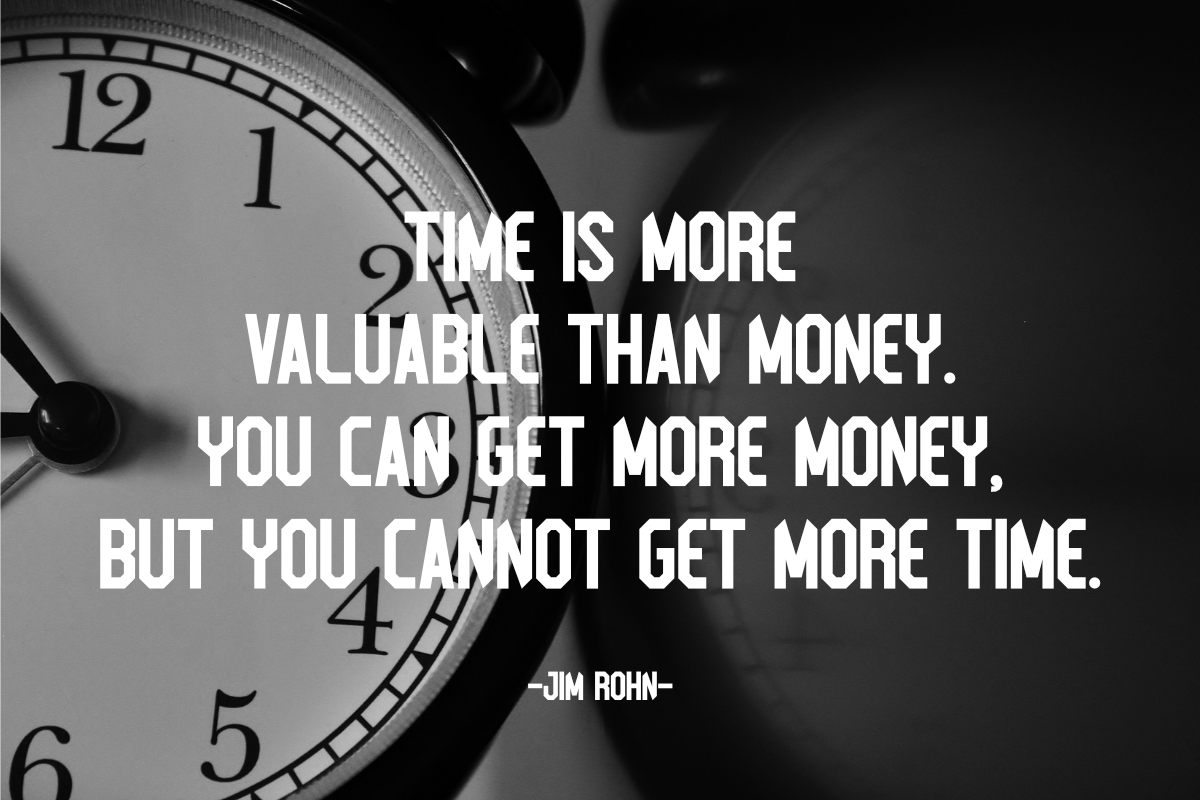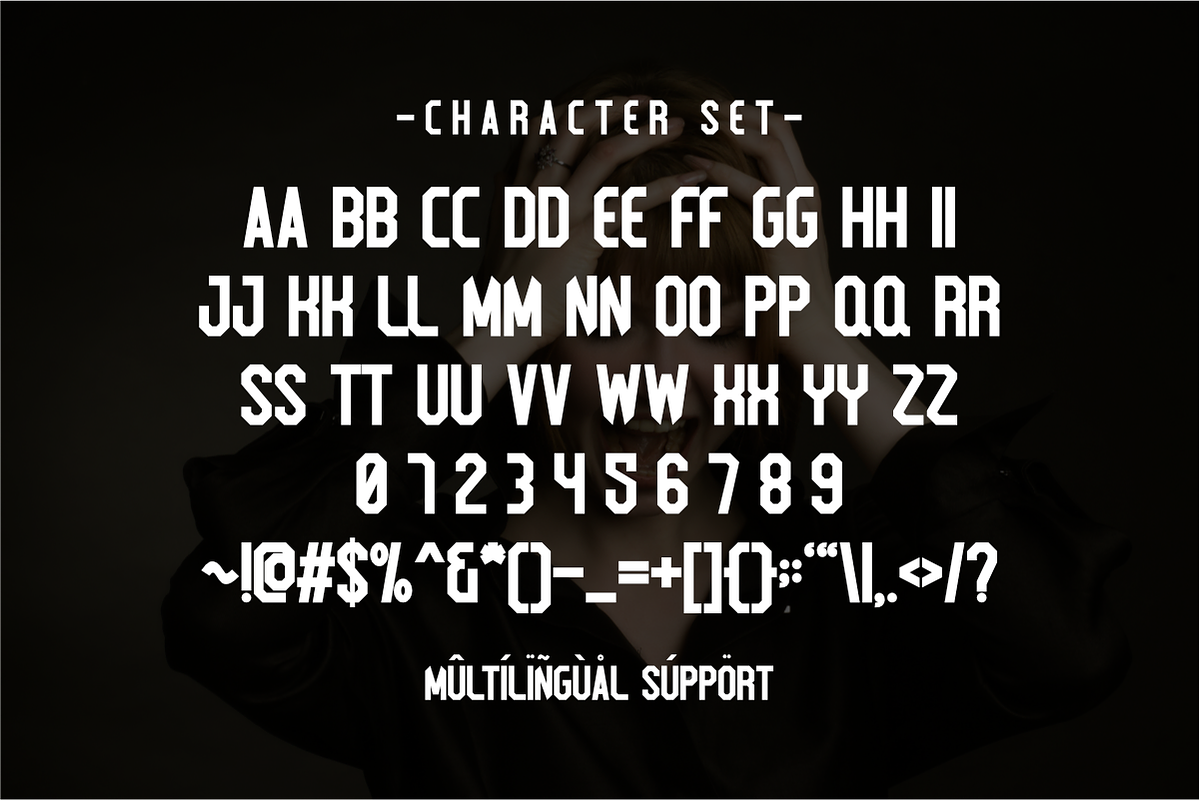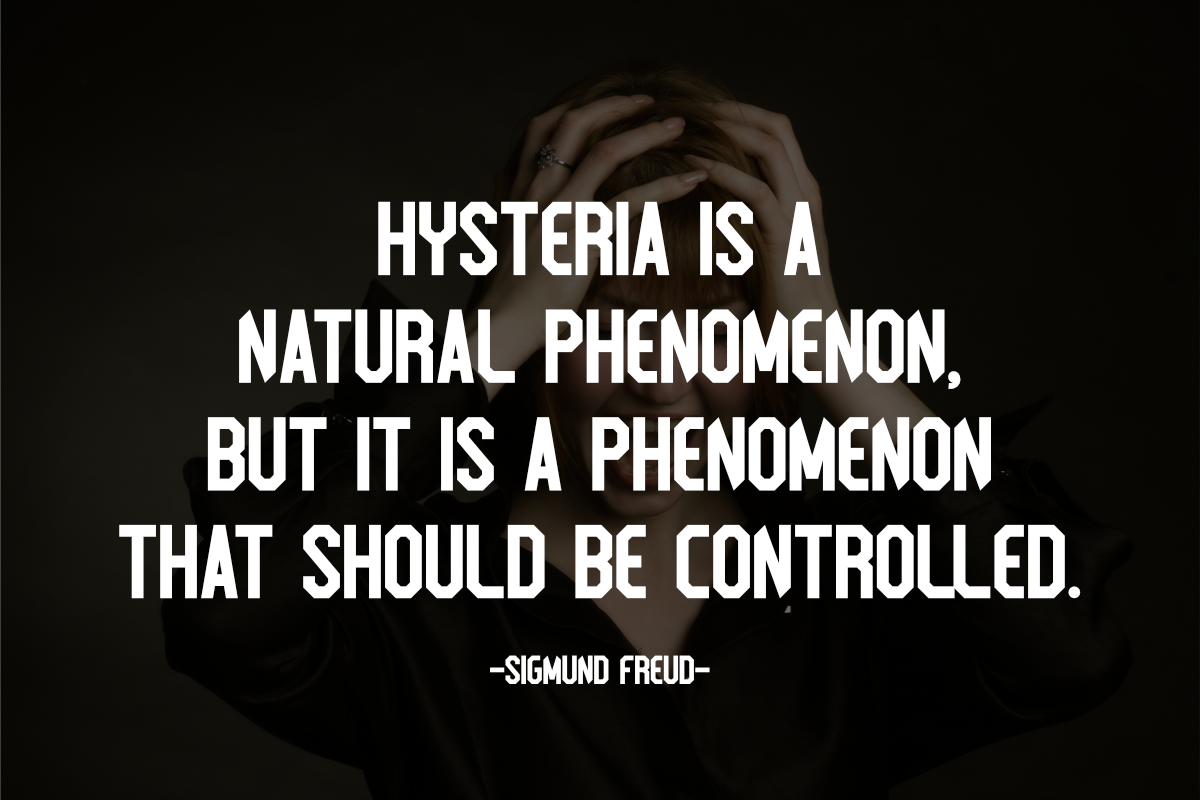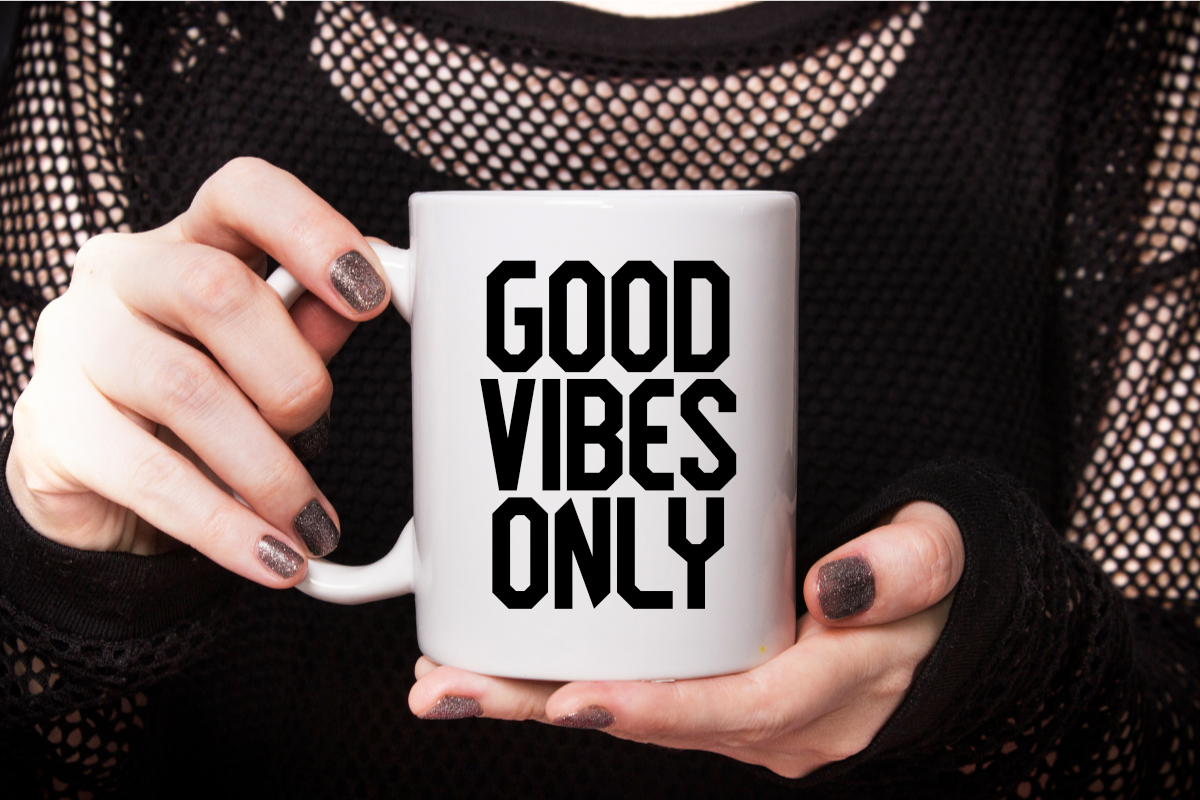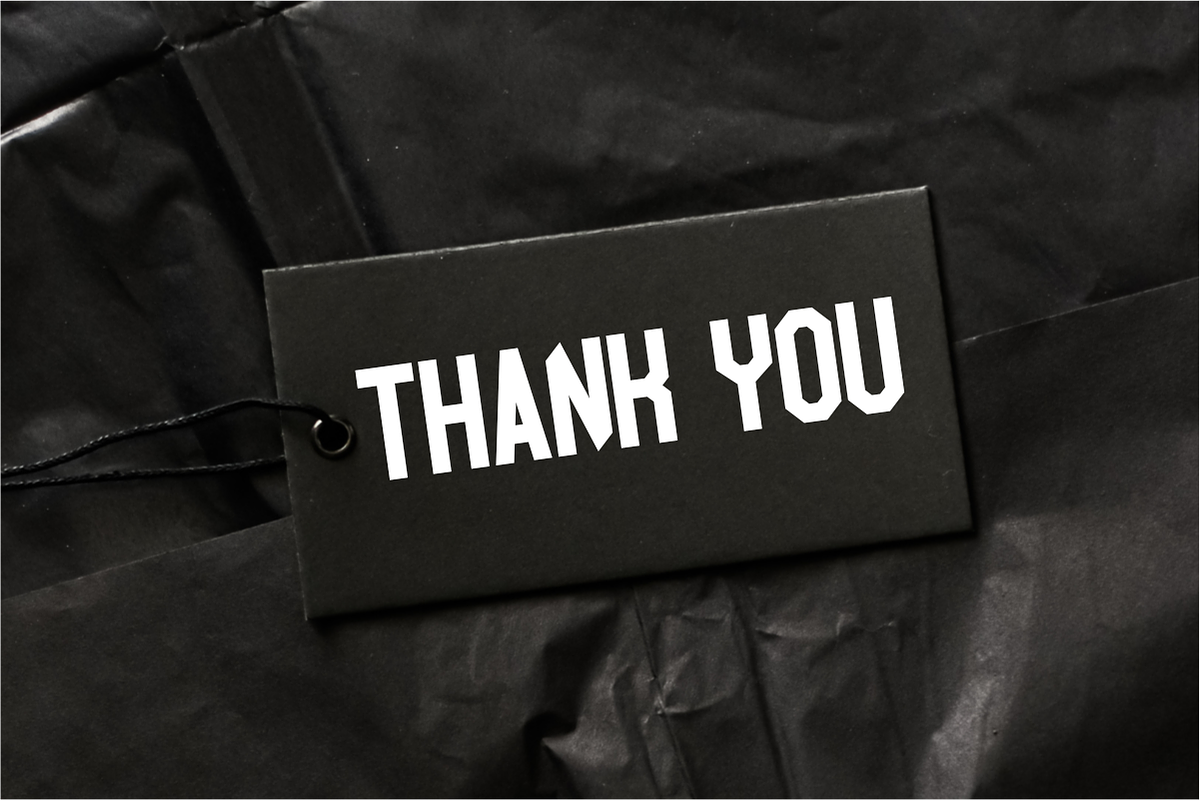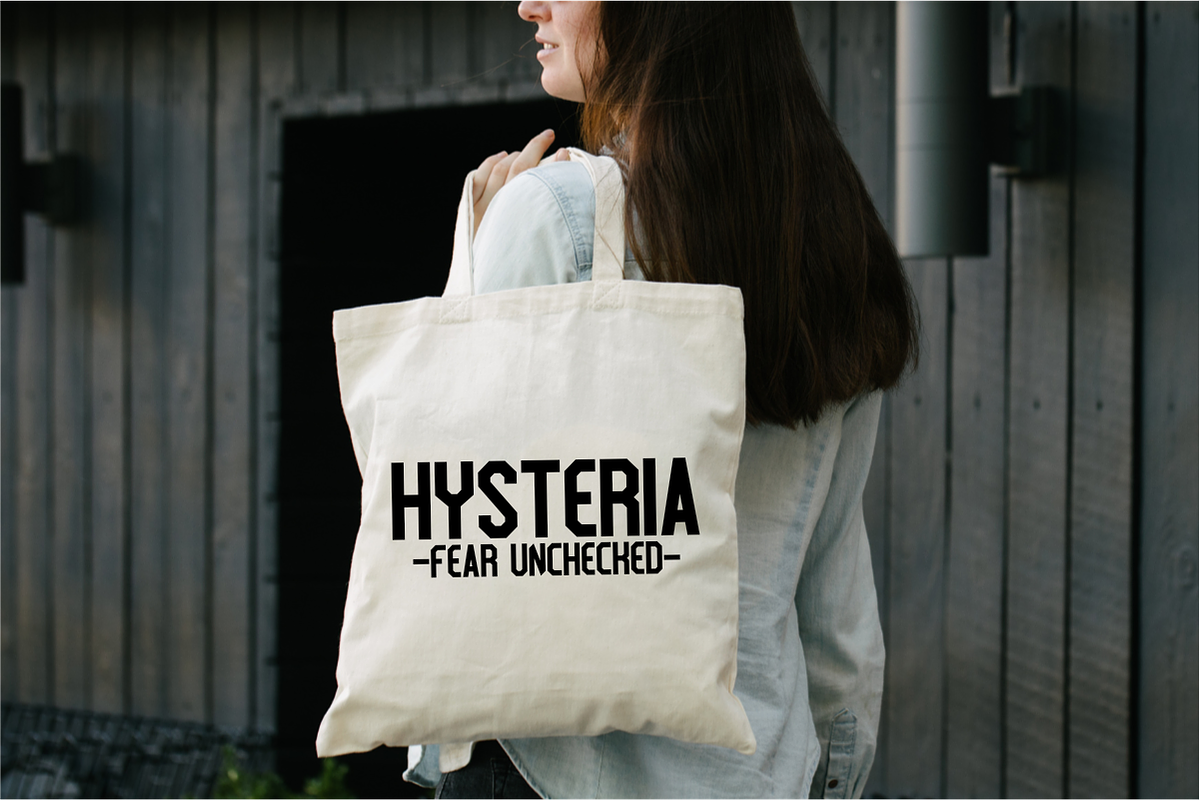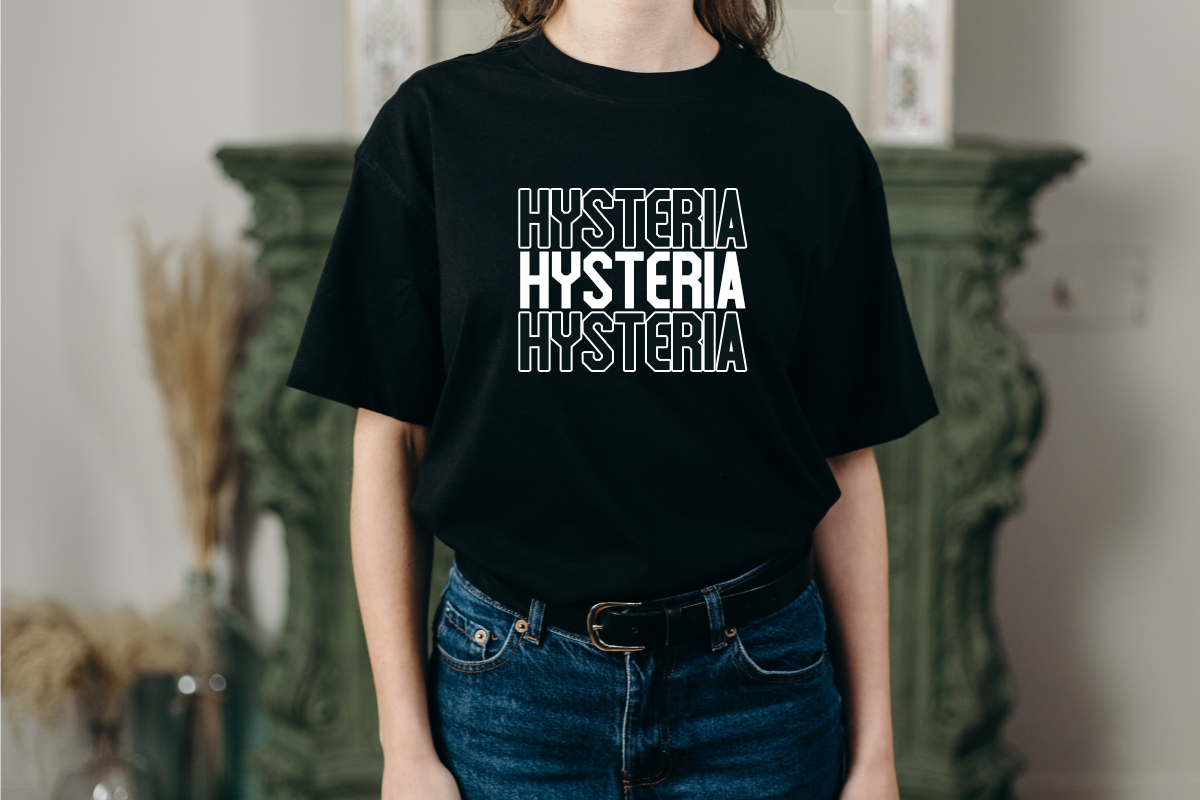
Hysteria - Condensed Sans Serif
Hysteria is a clean and condensed sans serif font designed for impactful visual communication. Its bold, condensed form makes it perfect for headlines, posters, and branding logos, delivering a modern and powerful aesthetic. Also ideal for quotes, mockups, and any design needing a powerful visual presence.